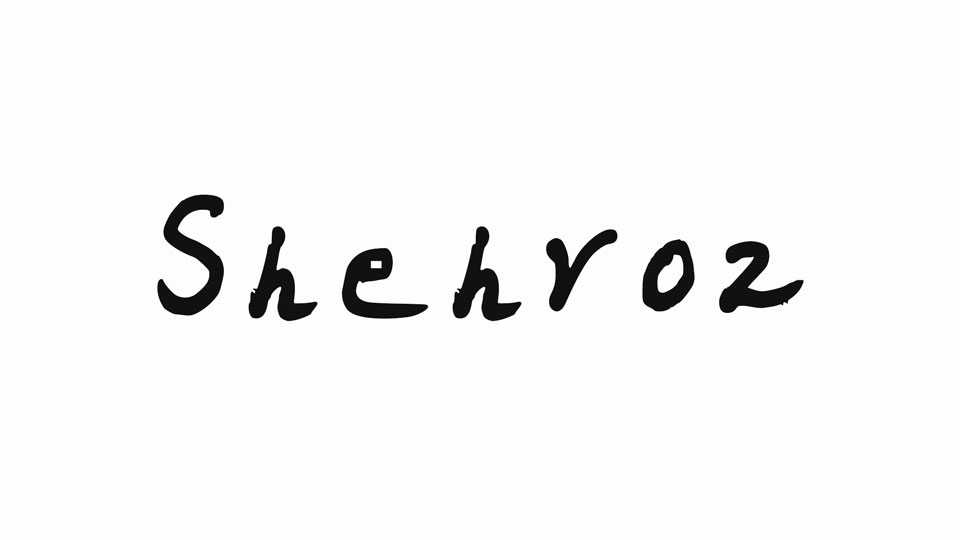
Download Shehroz font is an open-source experimental font project rooted in handwriting, typography, and neography — the practice of creating new ways of writing.